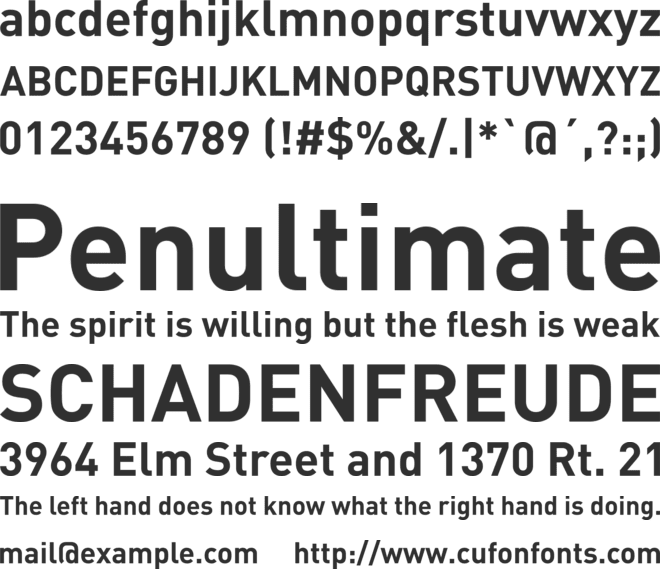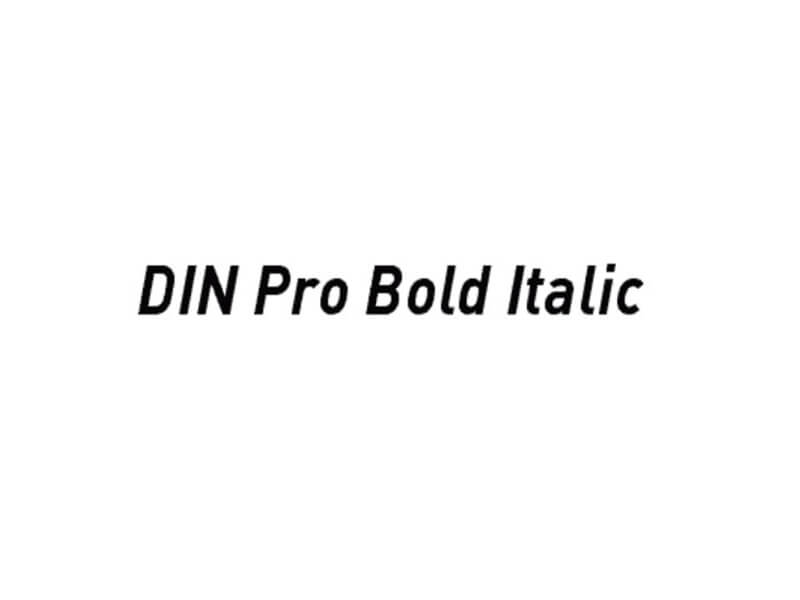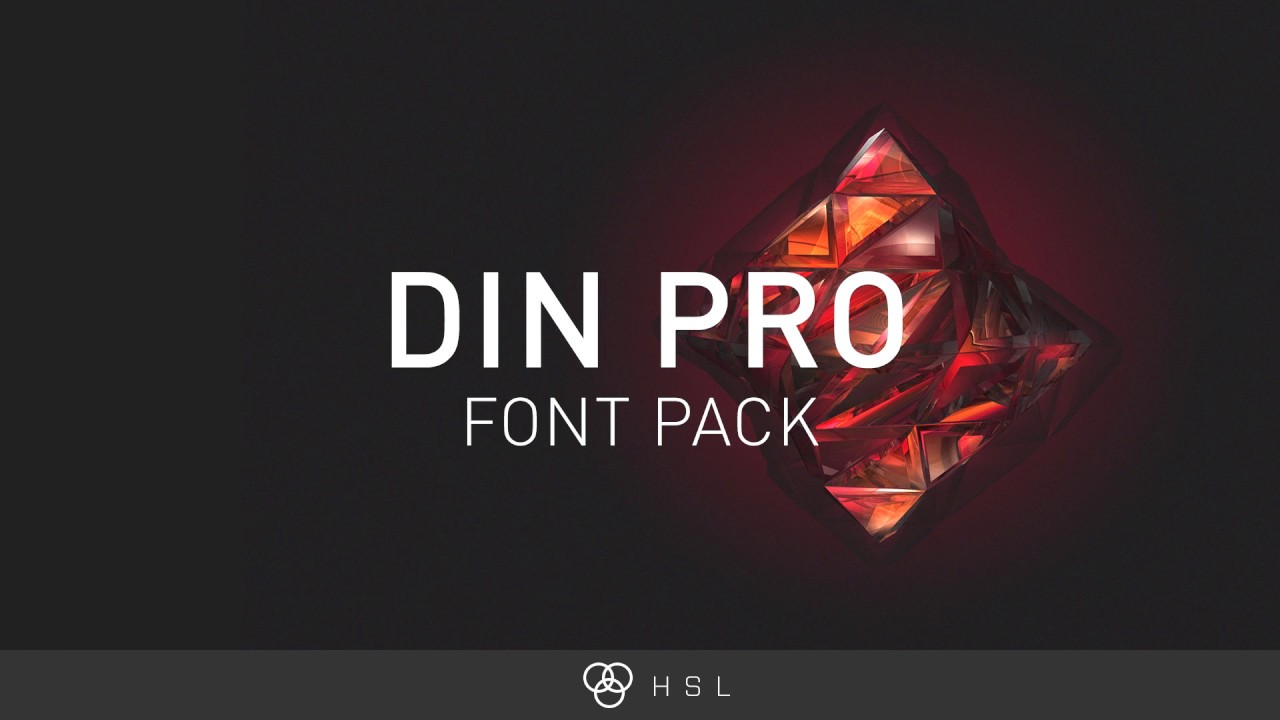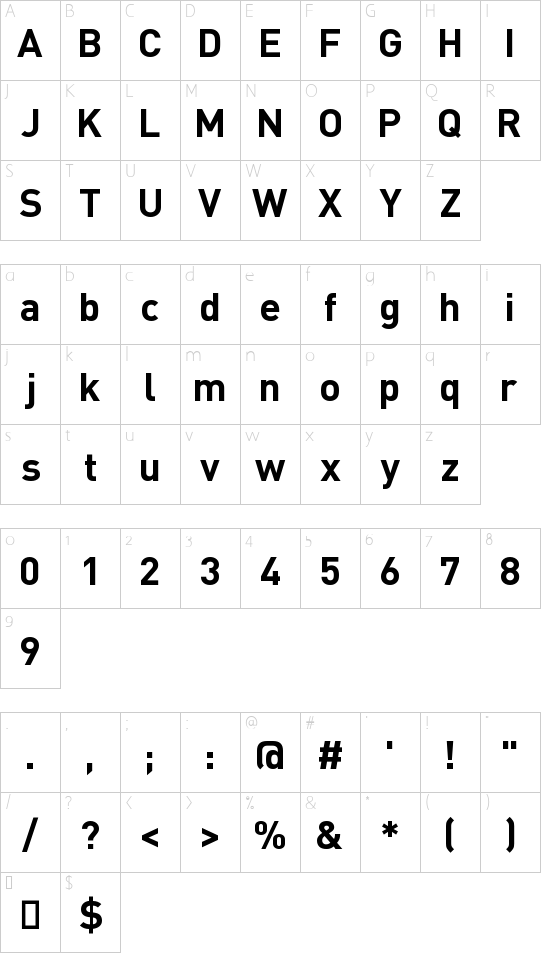
Din Pro Font
Din Pro Font - 1 style uncategorized 33 downloads download. Uncategorized 36149 downloads download dinpro bold. Web explore din condensed designed by manvel shmavonyan, tagir safayev at adobe fonts. Web din pro font free download here is a link through which you can download this typeface into your system. The din pro font family has been. Web the din pro (or sometimes referred to as ff din pro, due to its release by fontfont) is an expanded version of the classic din 1451 design. Web the quick brown fox jumps over the lazy dog. We are offering you a free version that is for. A sans serif typeface with 2 styles, available from adobe fonts for sync and web use.
Web explore din condensed designed by manvel shmavonyan, tagir safayev at adobe fonts. The din pro font family has been. Web the din pro (or sometimes referred to as ff din pro, due to its release by fontfont) is an expanded version of the classic din 1451 design. Web the quick brown fox jumps over the lazy dog. We are offering you a free version that is for. 1 style uncategorized 33 downloads download. Uncategorized 36149 downloads download dinpro bold. Web din pro font free download here is a link through which you can download this typeface into your system. A sans serif typeface with 2 styles, available from adobe fonts for sync and web use.
Web the quick brown fox jumps over the lazy dog. Web the din pro (or sometimes referred to as ff din pro, due to its release by fontfont) is an expanded version of the classic din 1451 design. A sans serif typeface with 2 styles, available from adobe fonts for sync and web use. 1 style uncategorized 33 downloads download. Uncategorized 36149 downloads download dinpro bold. The din pro font family has been. Web explore din condensed designed by manvel shmavonyan, tagir safayev at adobe fonts. We are offering you a free version that is for. Web din pro font free download here is a link through which you can download this typeface into your system.
The din pro font family has been. Web the quick brown fox jumps over the lazy dog. Web din pro font free download here is a link through which you can download this typeface into your system. Web explore din condensed designed by manvel shmavonyan, tagir safayev at adobe fonts. Web the din pro (or sometimes referred to as ff.
Web din pro font free download here is a link through which you can download this typeface into your system. Uncategorized 36149 downloads download dinpro bold. A sans serif typeface with 2 styles, available from adobe fonts for sync and web use. We are offering you a free version that is for. Web explore din condensed designed by manvel shmavonyan,.
Web the din pro (or sometimes referred to as ff din pro, due to its release by fontfont) is an expanded version of the classic din 1451 design. Uncategorized 36149 downloads download dinpro bold. Web explore din condensed designed by manvel shmavonyan, tagir safayev at adobe fonts. We are offering you a free version that is for. The din pro.
Web din pro font free download here is a link through which you can download this typeface into your system. The din pro font family has been. Web explore din condensed designed by manvel shmavonyan, tagir safayev at adobe fonts. 1 style uncategorized 33 downloads download. Web the din pro (or sometimes referred to as ff din pro, due to.
We are offering you a free version that is for. Web the quick brown fox jumps over the lazy dog. A sans serif typeface with 2 styles, available from adobe fonts for sync and web use. Web din pro font free download here is a link through which you can download this typeface into your system. Web explore din condensed.
Web the quick brown fox jumps over the lazy dog. Web din pro font free download here is a link through which you can download this typeface into your system. Uncategorized 36149 downloads download dinpro bold. Web explore din condensed designed by manvel shmavonyan, tagir safayev at adobe fonts. We are offering you a free version that is for.
The din pro font family has been. Web explore din condensed designed by manvel shmavonyan, tagir safayev at adobe fonts. Web the din pro (or sometimes referred to as ff din pro, due to its release by fontfont) is an expanded version of the classic din 1451 design. Web din pro font free download here is a link through which.
Web explore din condensed designed by manvel shmavonyan, tagir safayev at adobe fonts. 1 style uncategorized 33 downloads download. Uncategorized 36149 downloads download dinpro bold. We are offering you a free version that is for. Web din pro font free download here is a link through which you can download this typeface into your system.
Web the din pro (or sometimes referred to as ff din pro, due to its release by fontfont) is an expanded version of the classic din 1451 design. Web din pro font free download here is a link through which you can download this typeface into your system. Web the quick brown fox jumps over the lazy dog. Uncategorized 36149.
A sans serif typeface with 2 styles, available from adobe fonts for sync and web use. Web the quick brown fox jumps over the lazy dog. Web din pro font free download here is a link through which you can download this typeface into your system.